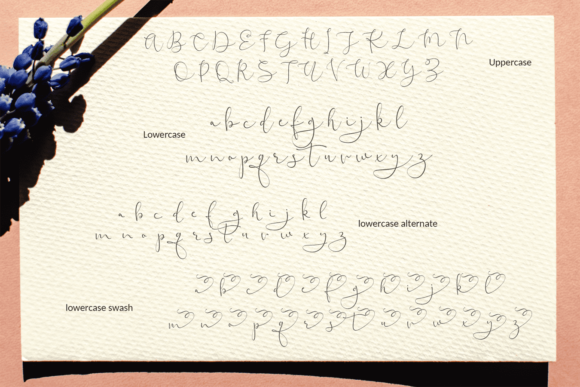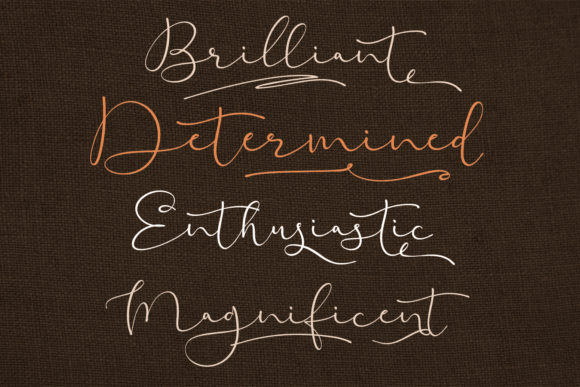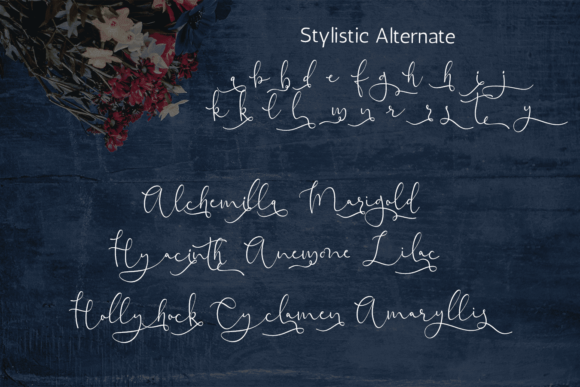
“Blooming Valerian” is a delicate and elegant handwritten calligraphy font that adds a touch of romance and sophistication to any design project. With its beautiful curves and slightly wide spacing, this font exudes timeless charm and grace. Whether you’re designing wedding invitations, branding materials, or elegant signage, “Blooming Valerian” is sure to make your creations stand out.
The thin strokes and flowing lines of “Blooming Valerian” give it a graceful and airy appearance, while the romantic calligraphic style adds a sense of warmth and intimacy to your designs. Each character dances along the baseline, creating a harmonious and fluid rhythm that captivates the eye.
One of the standout features of “Blooming Valerian” is its versatility. Whether you’re creating printed materials like wedding invitations and greeting cards or digital designs such as social media graphics and website headers, this font adapts seamlessly to any project. Its elegant aesthetic elevates any design, adding a touch of luxury and refinement.
Additionally, “Blooming Valerian” is PUA encoded, allowing you to access all of its amazing glyphs and ligatures with ease. This means you have full creative control over your typography, enabling you to customize and enhance your designs with unique flourishes and embellishments.
Overall, “Blooming Valerian” is a stunning choice for designers seeking a sophisticated and romantic calligraphy font. With its timeless elegance and luxurious feel, it transforms any project into a work of art, leaving a lasting impression on viewers.